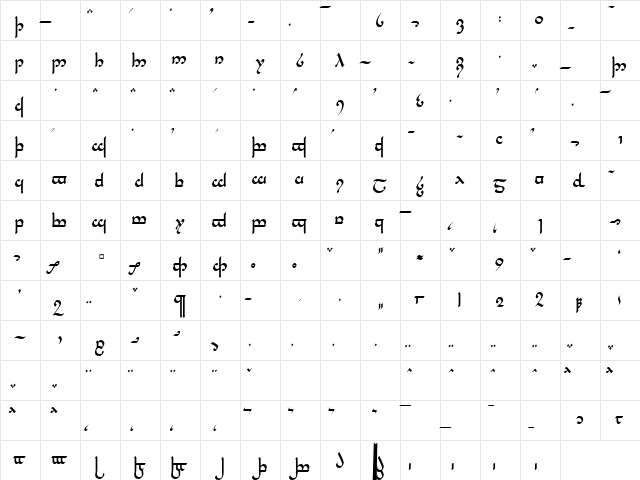
Tengwar Parmaite Regular
Design Context for Tengwar Parmaite Typeface
Tengwar Parmaite offers clean, dependable letterforms without strong stylistic allegiance, making it a practical choice for designers who need flexibility.